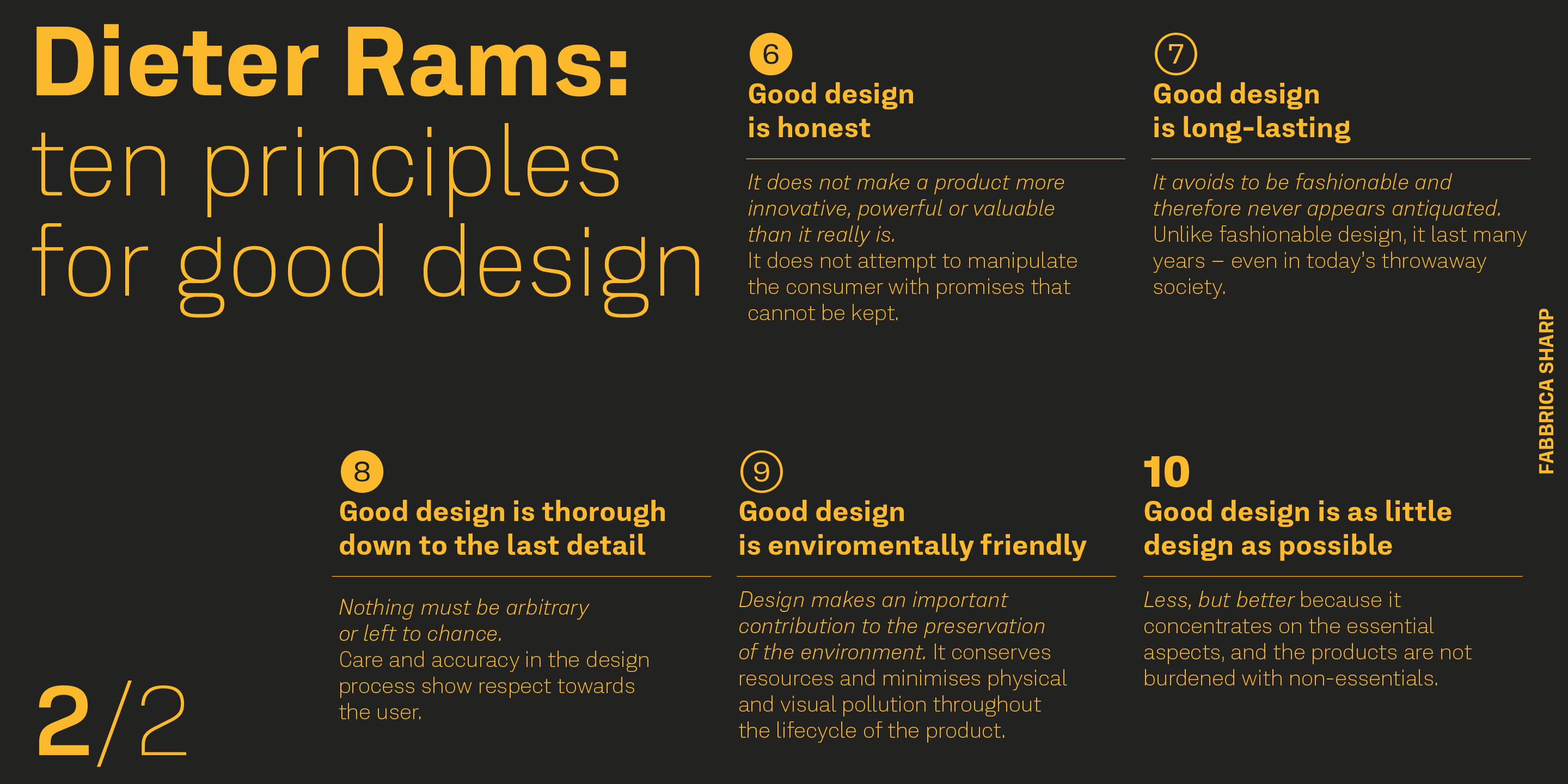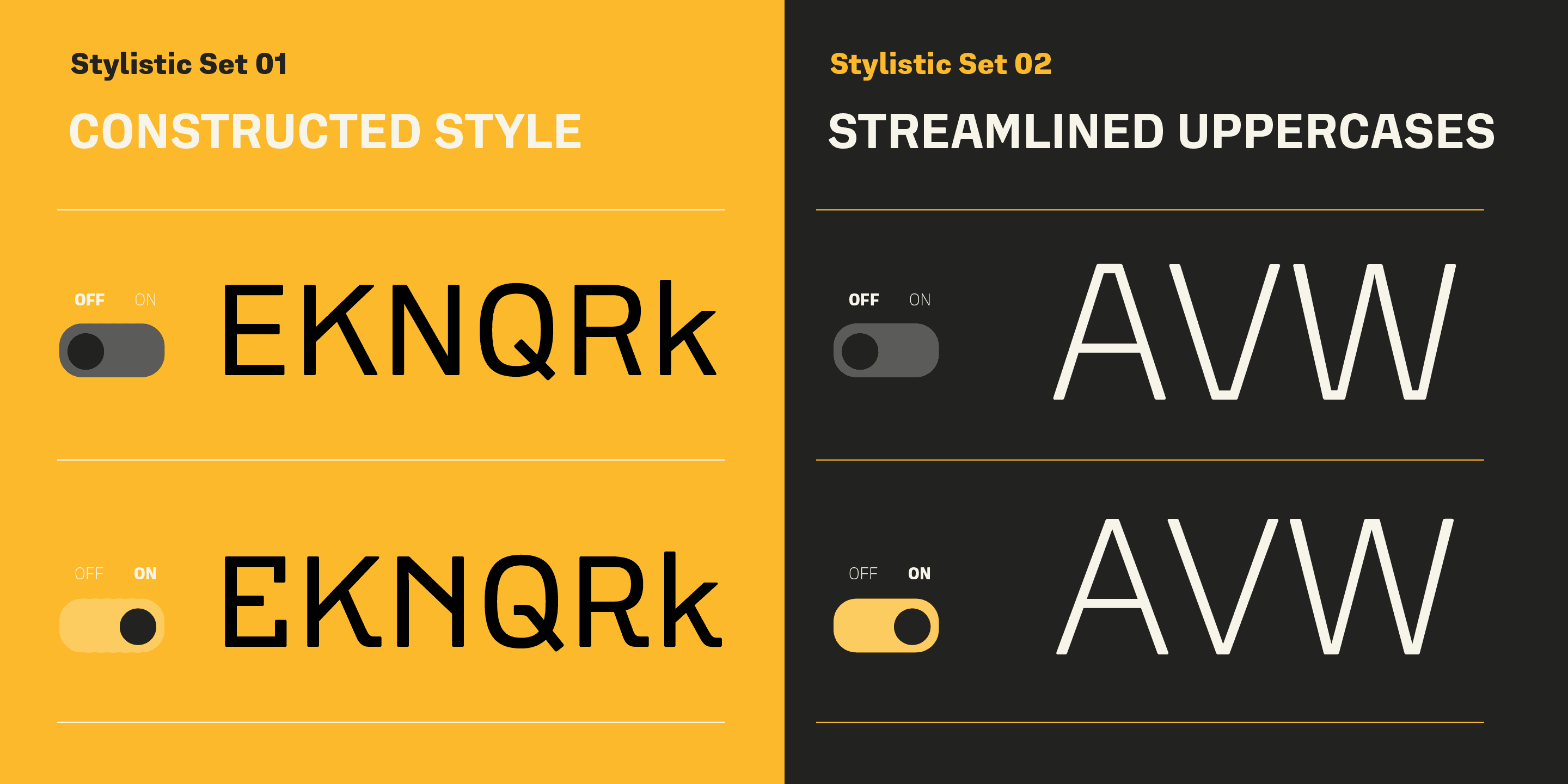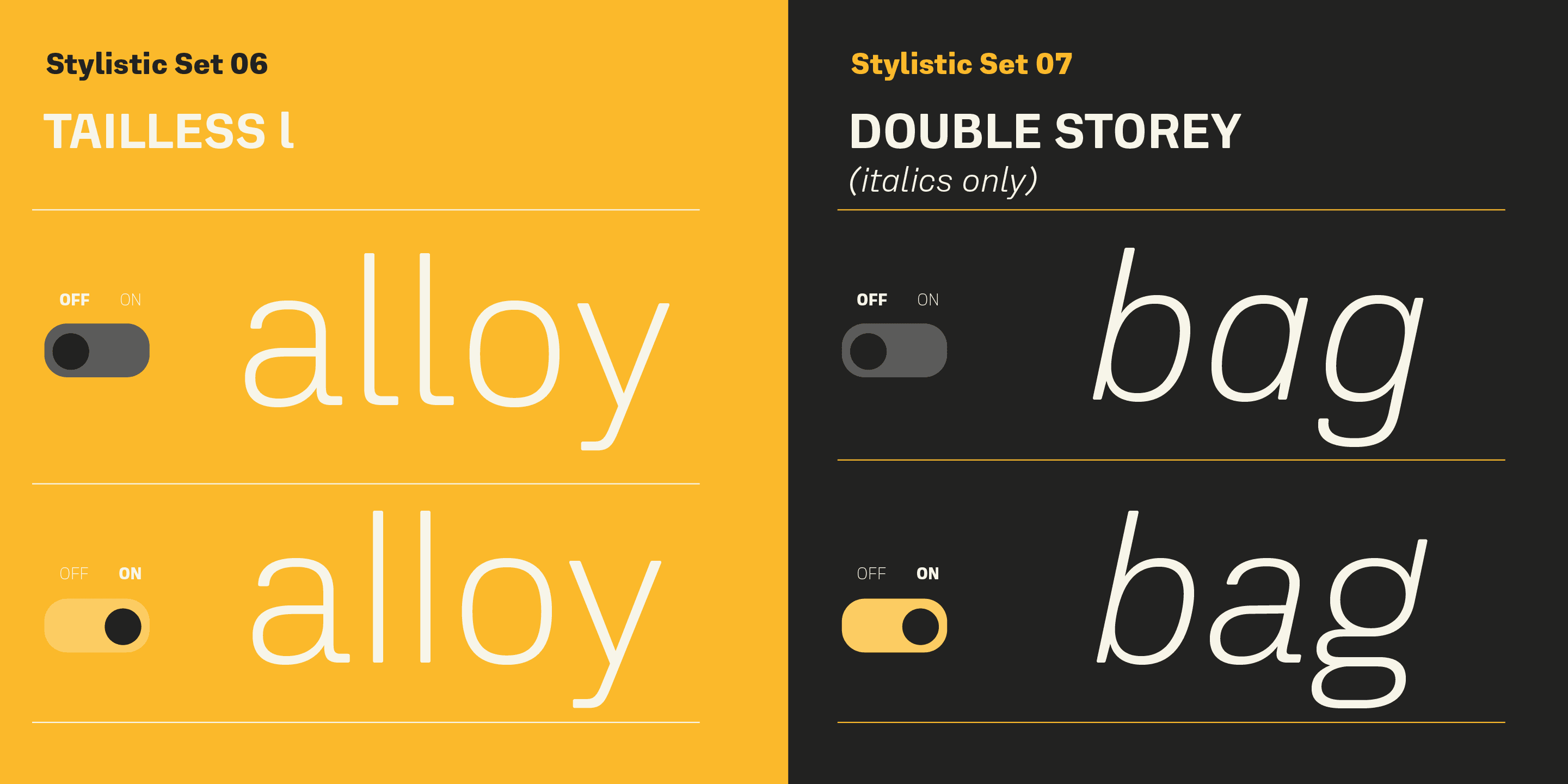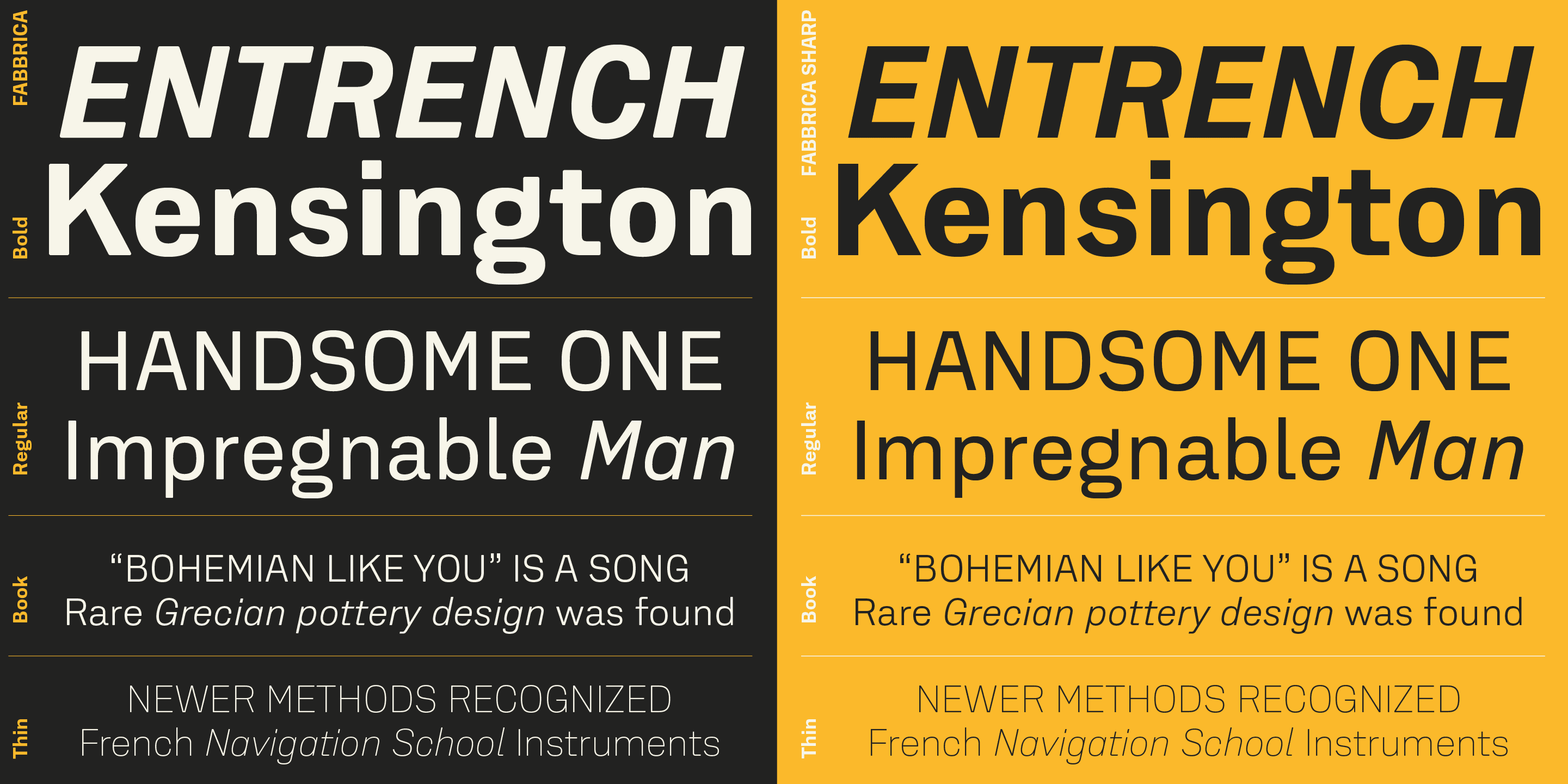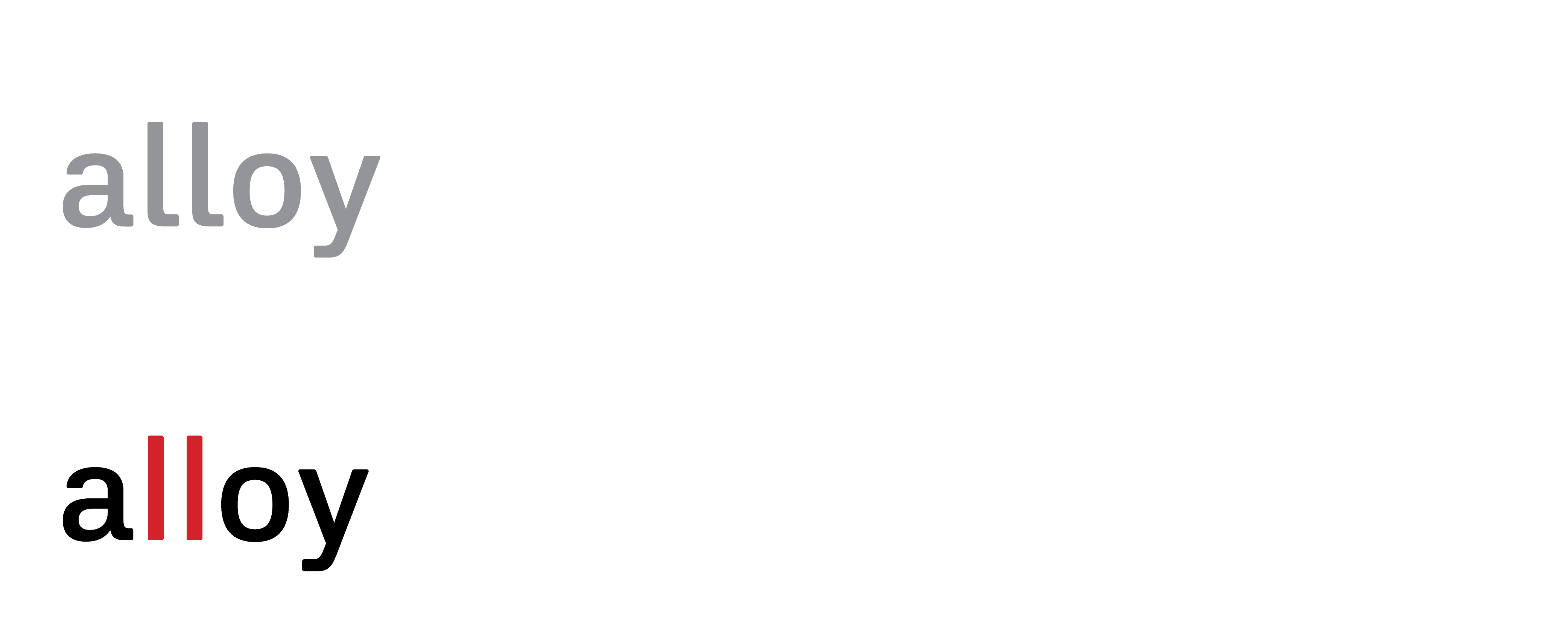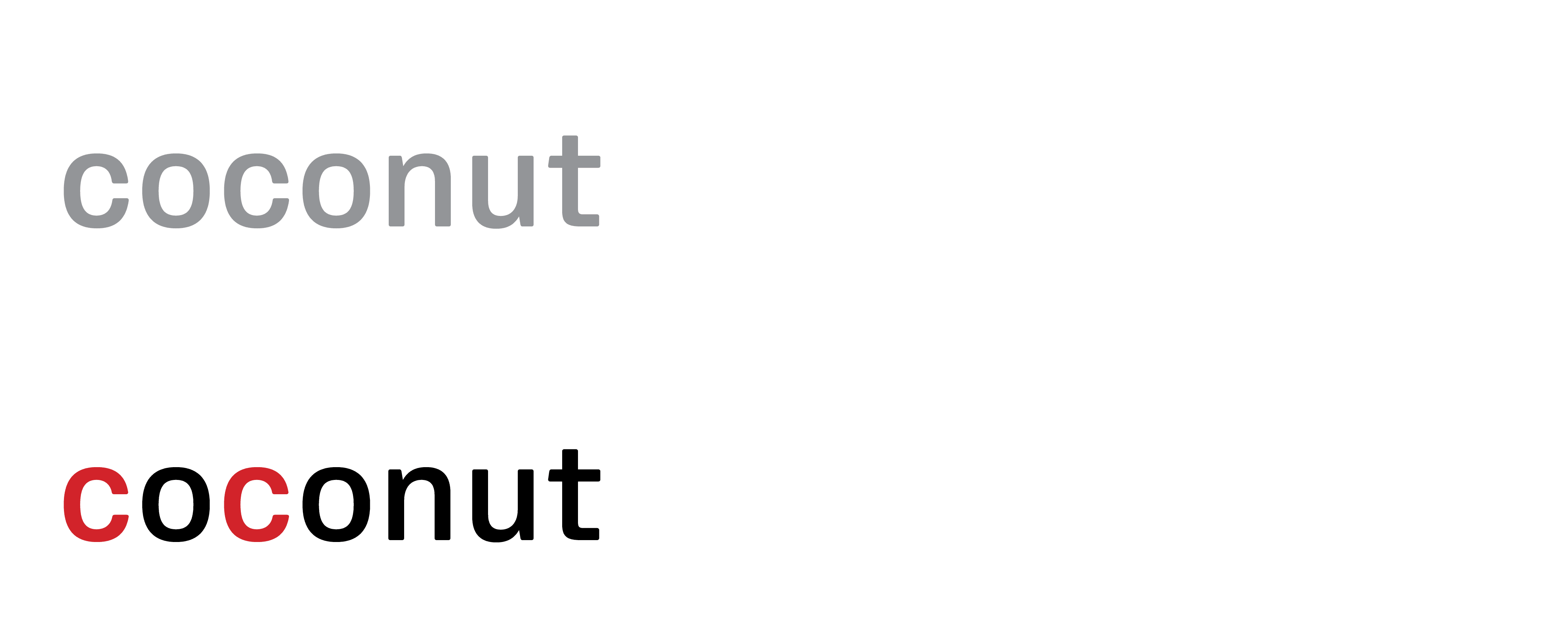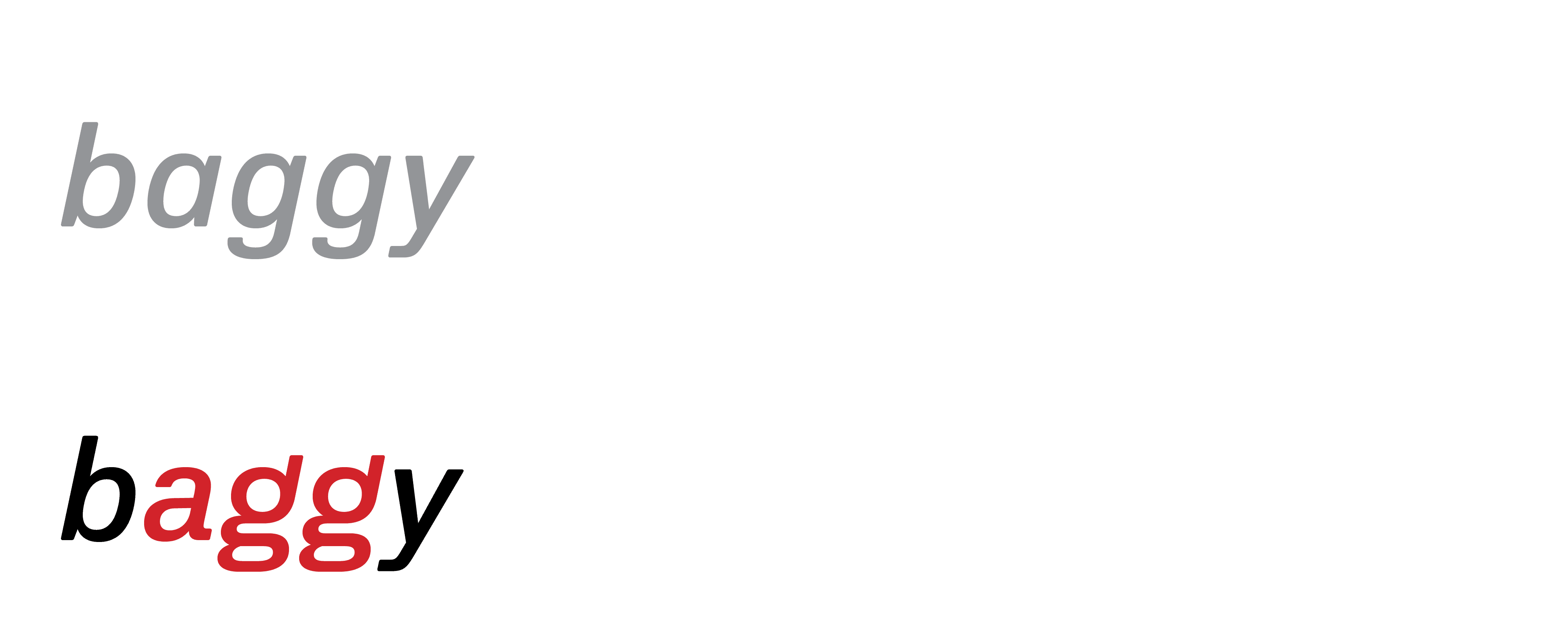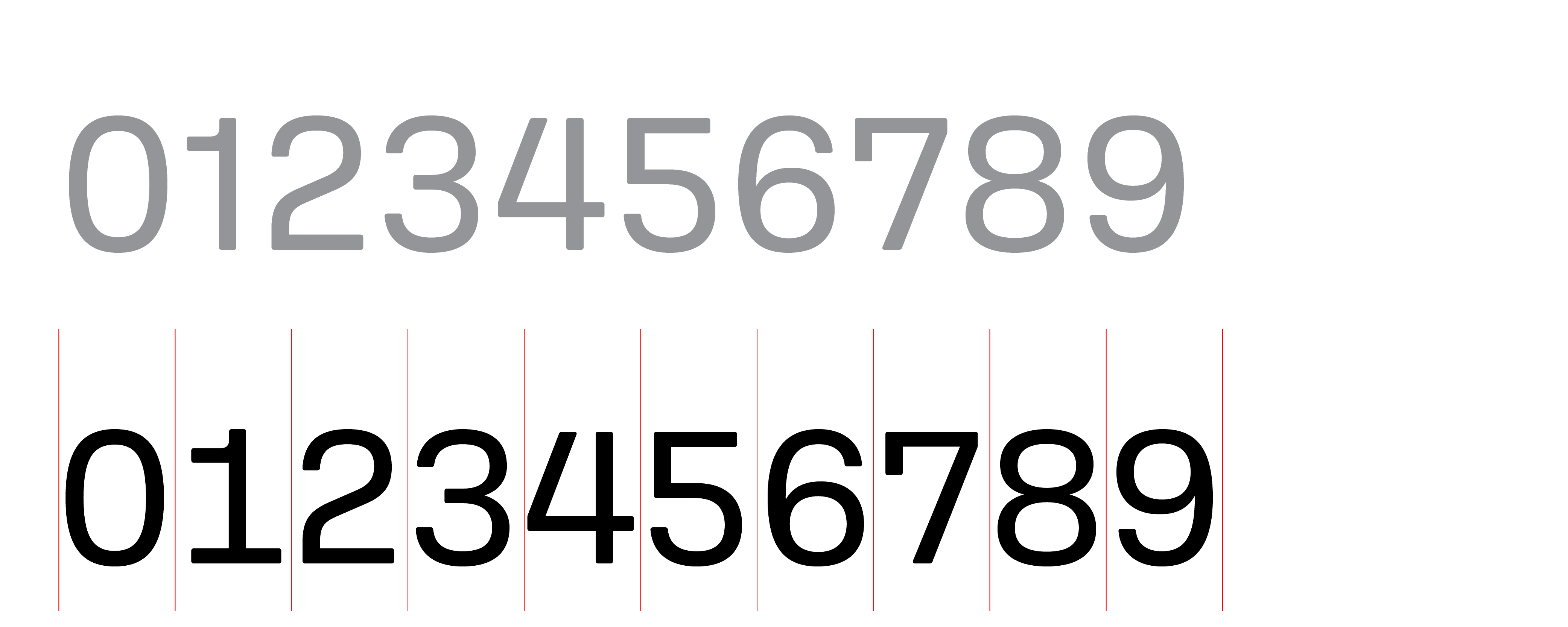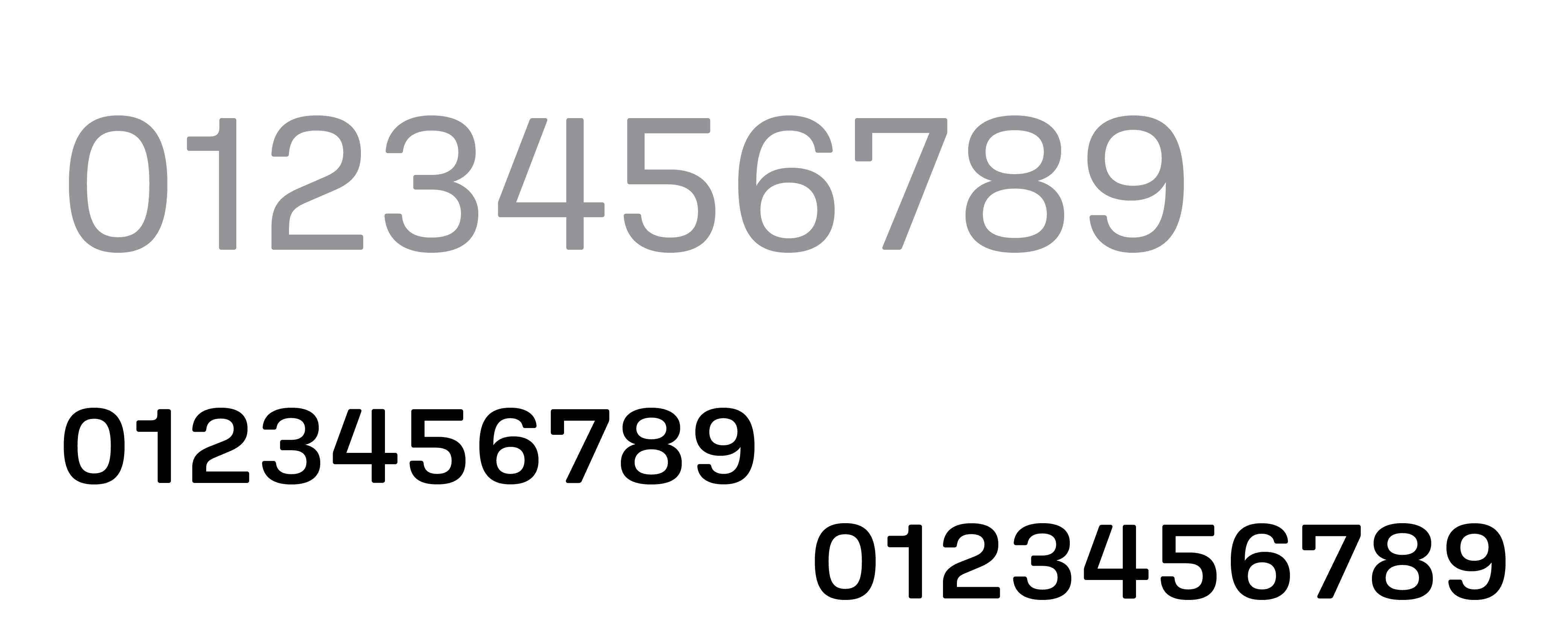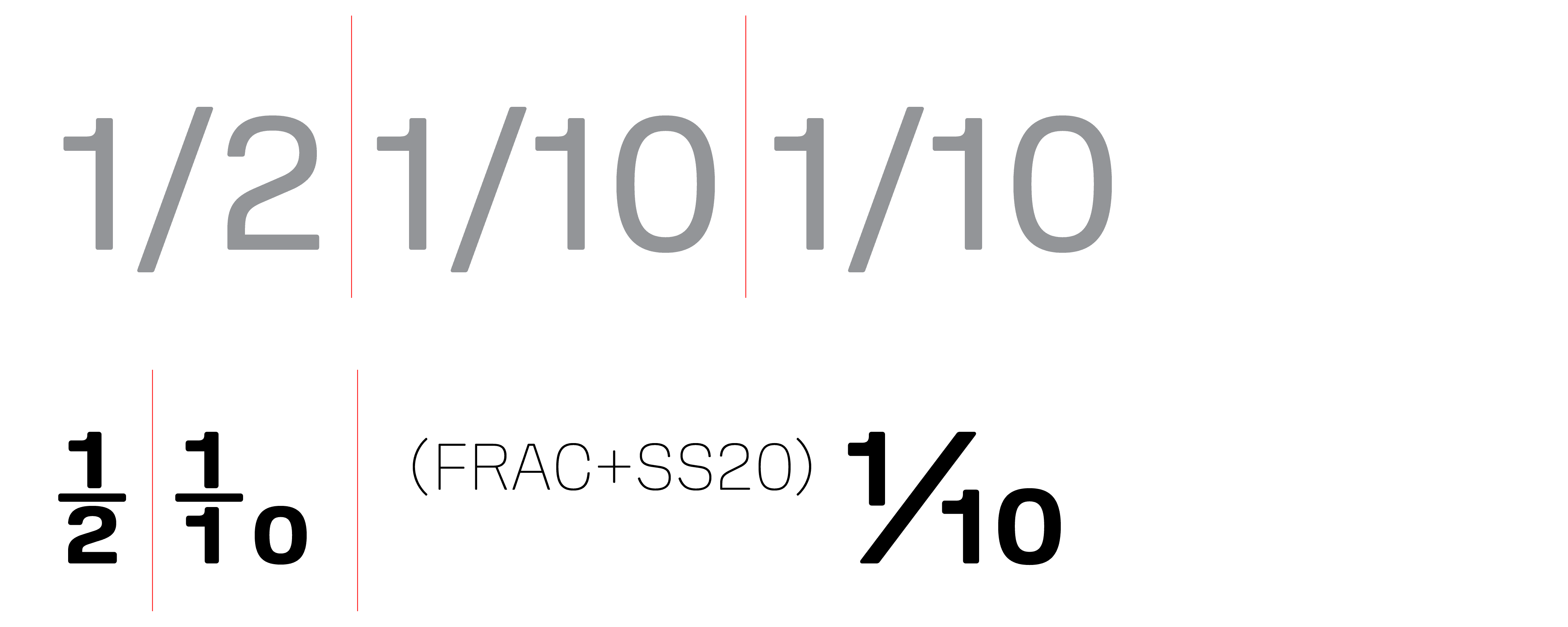
Fabbrica Sharp
Fabbrica (the Italian word for ‘factory’) is a distinctive sanserif typeface inspired by the world of industrial production and designed for branding, publishing and advertising as well as technical publications.
With a fairly big x-height, even proportions, squared curves and technical-geometric letterforms, it is a solid and versatile typeface that plays with the concepts of form and function in the geometric genre. It comes in 8 weights and 2 variants: Fabbrica, with rounded corners, and Fabbrica Sharp, with sharp corners. Rounded corners soften up the letter shapes making them warmer and more approachable. Sharp corners help to contrast the excessive natural rounding that occurs at smaller sizes and on low resolution printing devices, or offer a punchier feeling at bigger sizes.
Extremely functional and readable at smaller sizes, with its two styles, Fabbrica brings a distinction that is useful for big headlines or titles. Its proportions, shapes and details work at different levels, making the typeface easily adaptable to the designers’ needs – you can fine-tune the composition adjusting the size, the weight and the set of available alternates.
Designer
Michele Patanè
OpenType Features
Tabular numbers
Superscript and subscript
Fractions
Case sensitive forms
Constructed Style (SS 01)
Streamlined Uppercase (SS 02)
Rounder Elements (SS 03)
Circled figures (SS 04)
Indices figures (SS 05)
Tailles l (SS 06)
Open c (SS 07)
Double Storey Italic (SS 08)